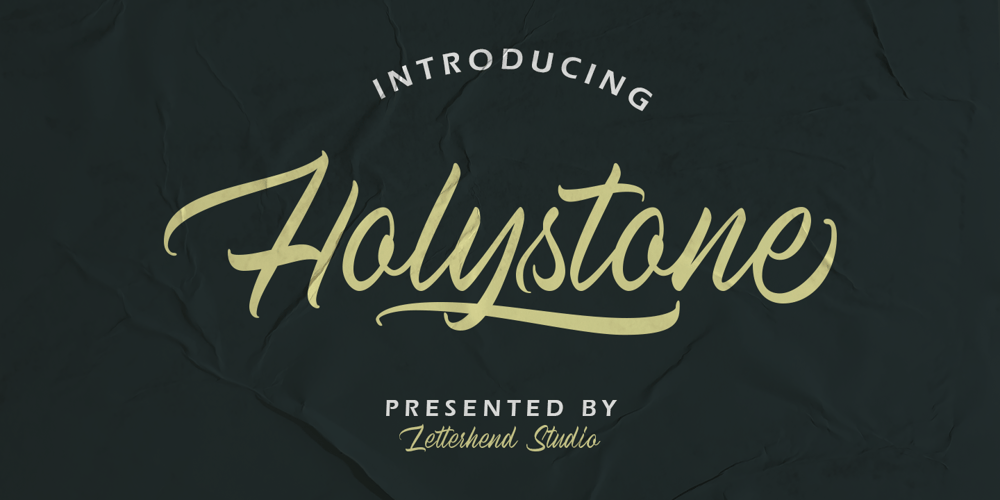
Holystone
Holystone font
Holystone Font Family was designed by Hendry Juanda and published by Letterhend. Holystone contains 1 styles and family package options. Holystone is a natural hand writing script typeface. Very suitable to be used as a headline, instagram post and stories, logos, magazines, books, greeting / wedding cards, packaging, fashion, make up, stationery, novels, labels or any type of advertising purpose.Features : uppercase & lowercase numbers and punctuation multilingual ligatures alternates swashes PUA encoded We hope you enjoy the font, please feel free to comment if you have any thoughts or feedback. Or simply send me a PM or email me at letterhend@gmail.com